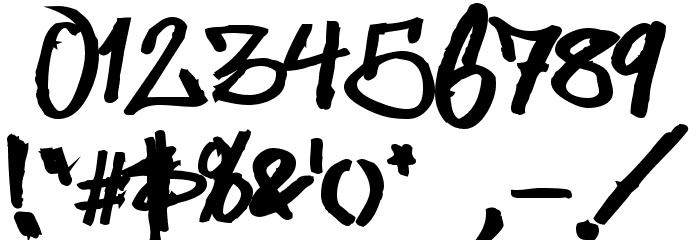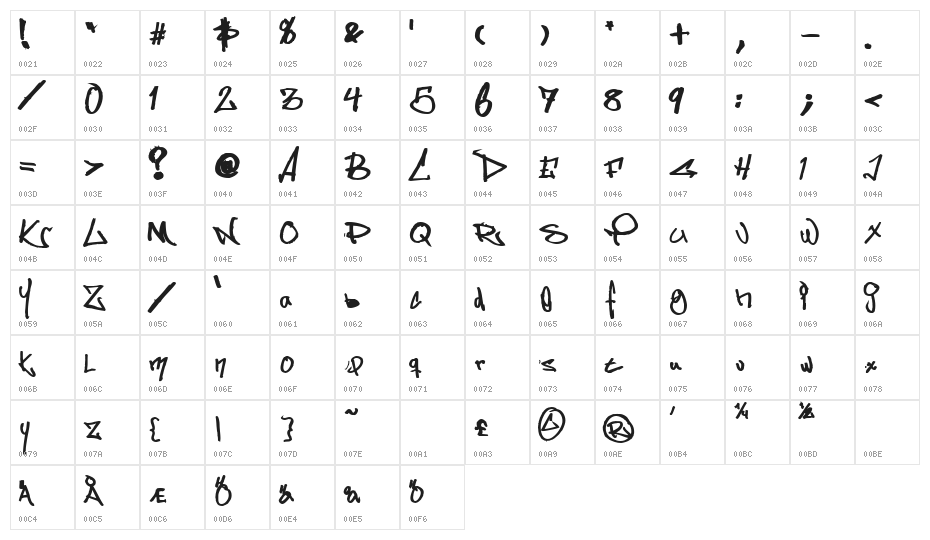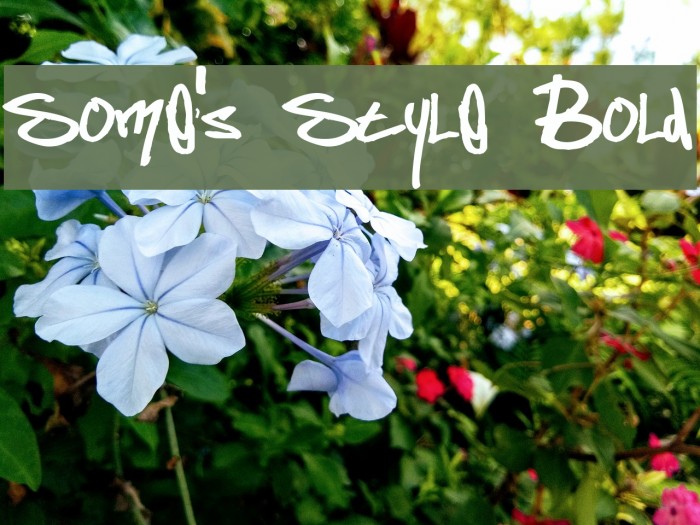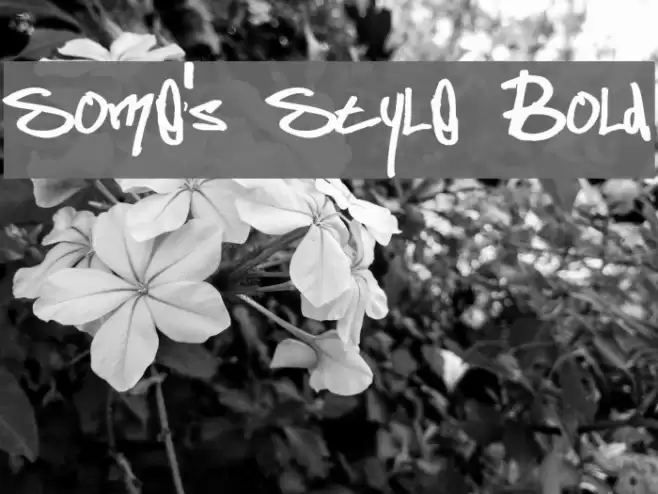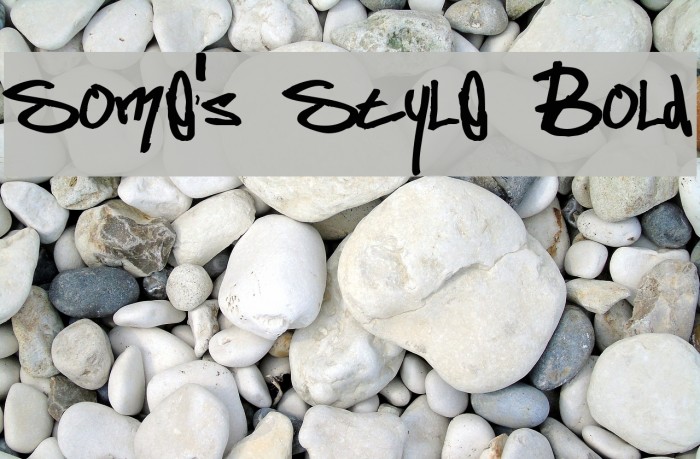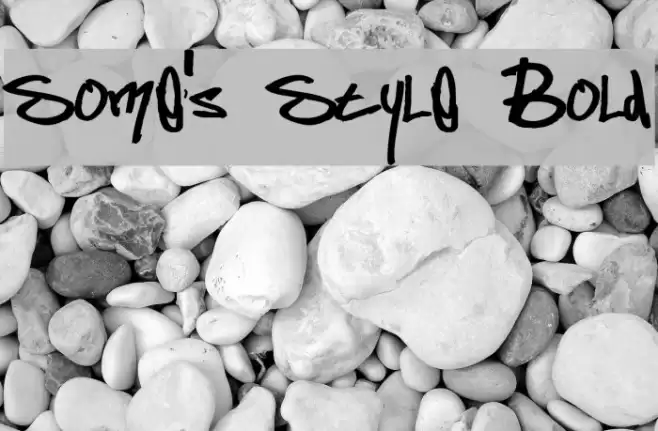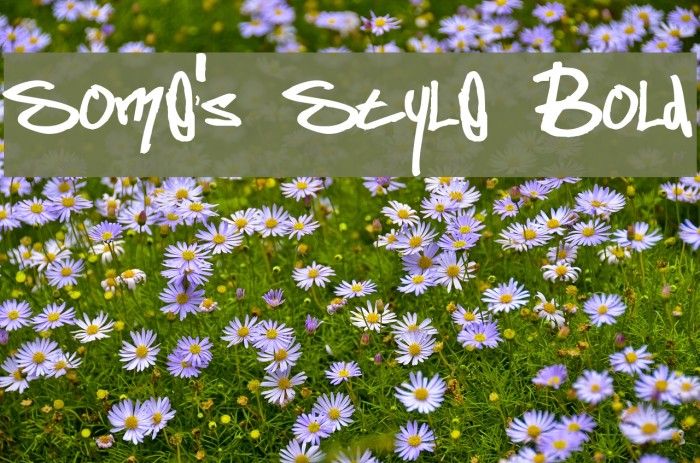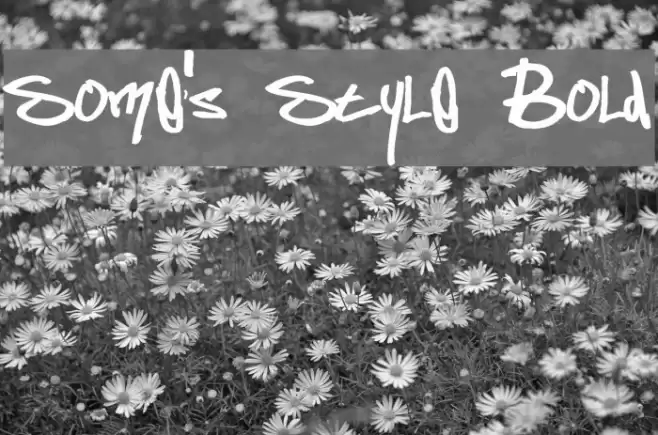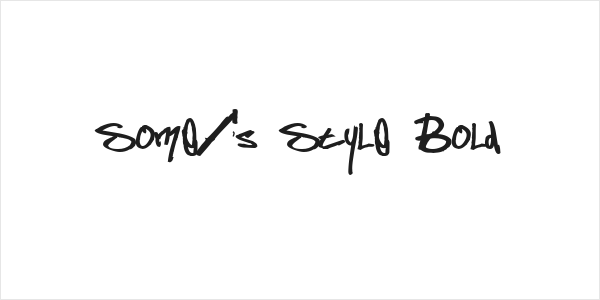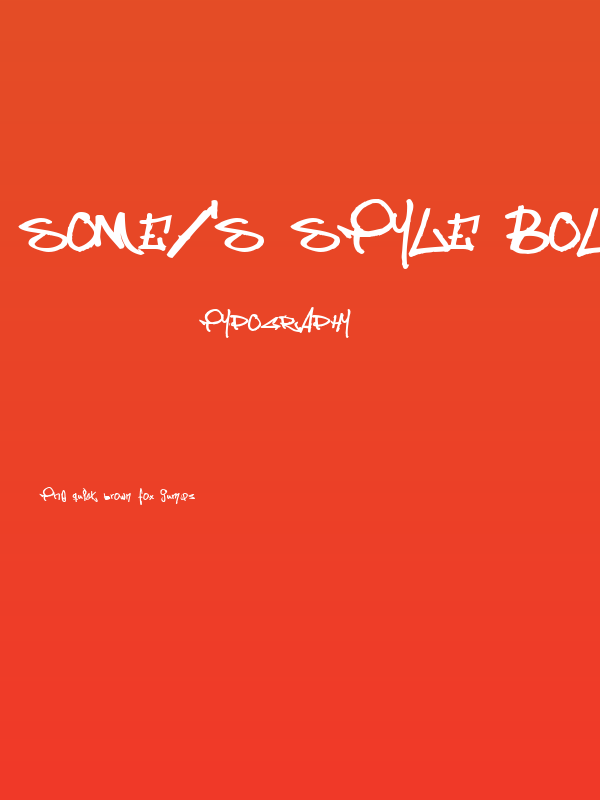
Some's Style Bold Font
This font exhibits a bold, expressive style with a handwritten, graffiti-like appearance. The characters are dynamic and energetic, featuring irregular strokes and varying thicknesses that convey a sense of movement and spontaneity. The uppercase and lowercase letters maintain a consistent style, with exaggerated curves and angles that enhance its artistic flair. Numbers and special characters follow the same bold and freeform design, making this font suitable for creative and unconventional projects.
| Use Case | Logos, Posters, Creative projects |
| Proposed Projects | Ideal for street art designs, music album covers, urban-themed posters, and creative branding projects. |